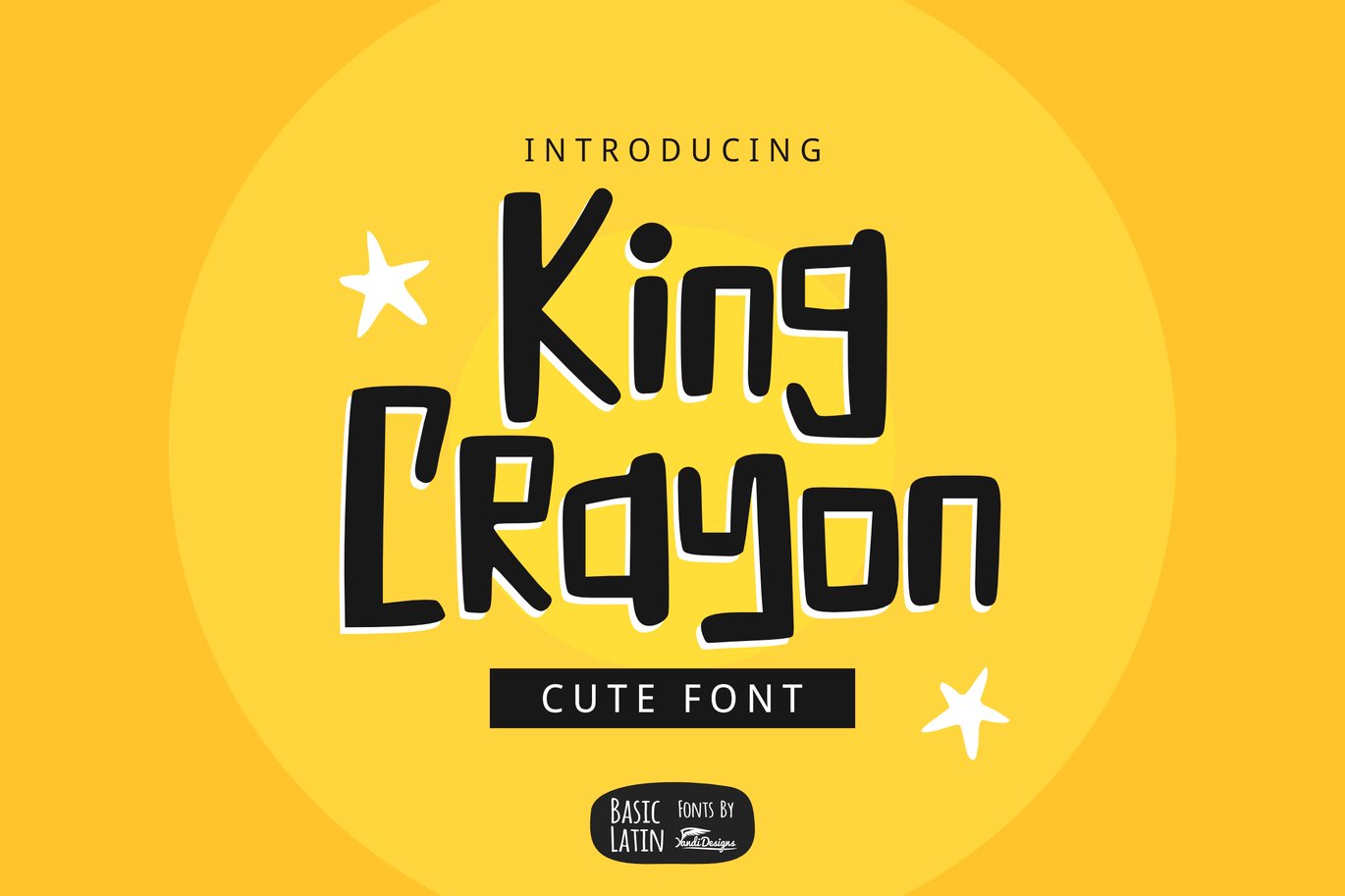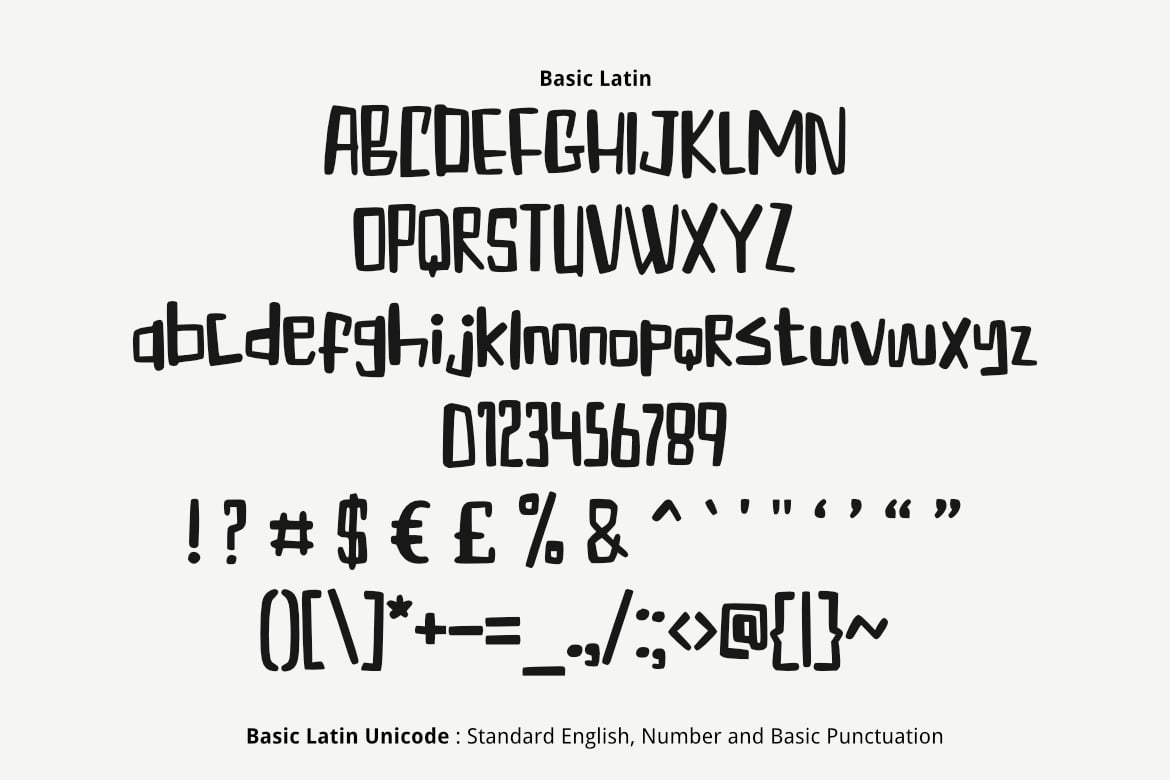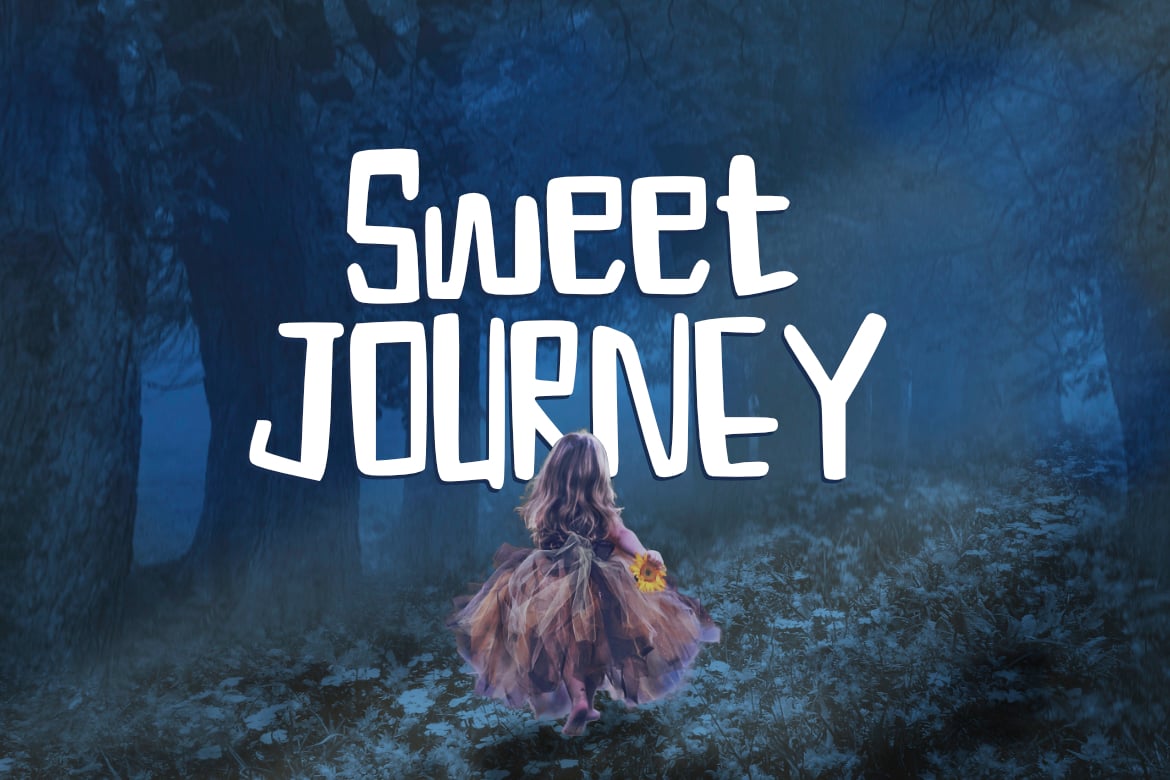
King Crayon Font
King Crayon font is simple cute multipurpose handmade font , suitable for many project children book, quotes, logo , heading , title etc.